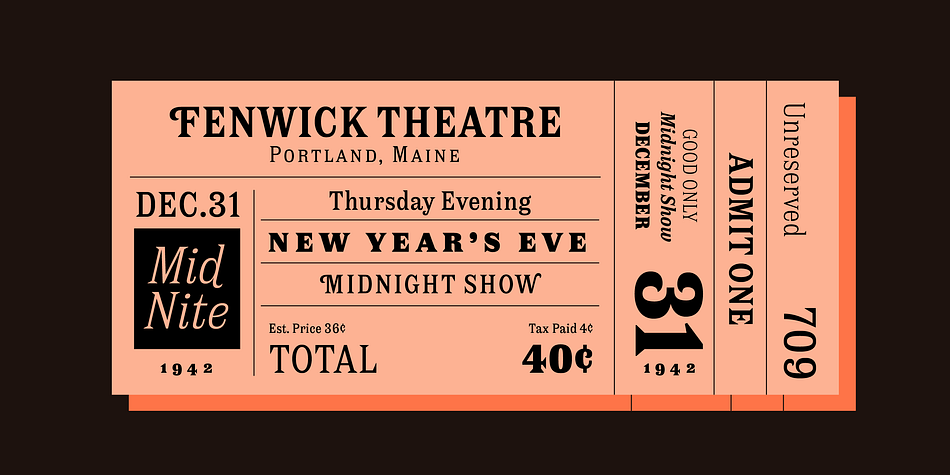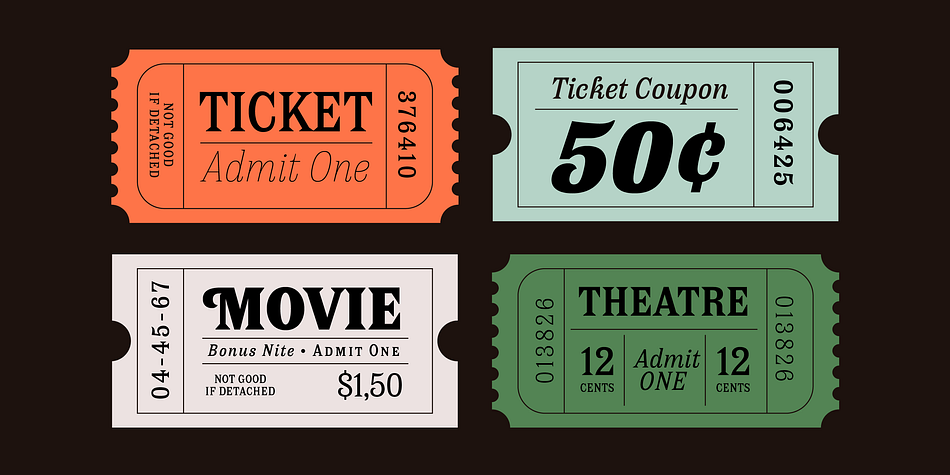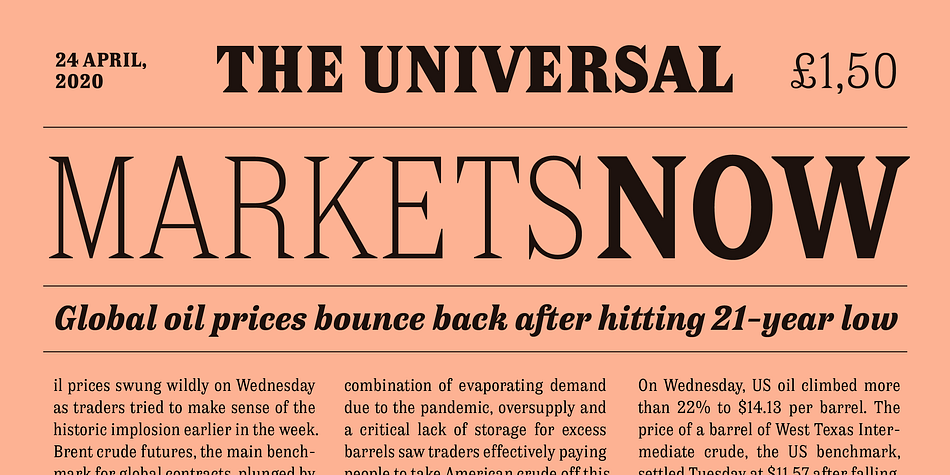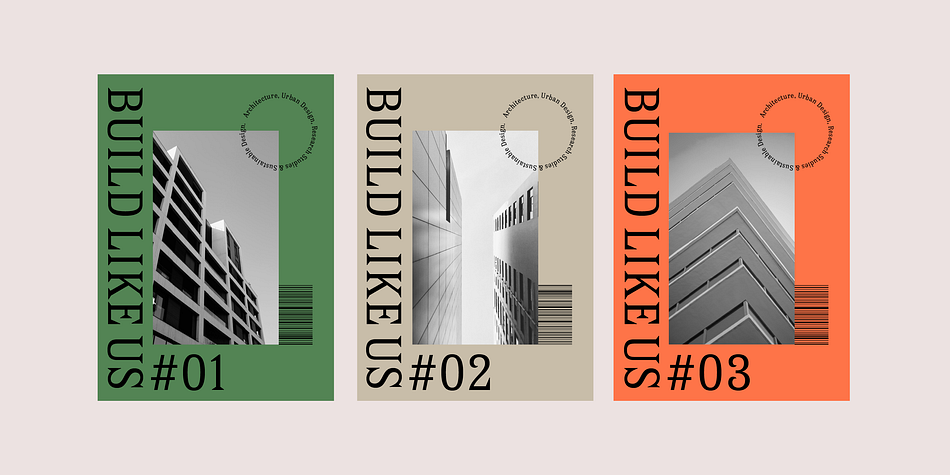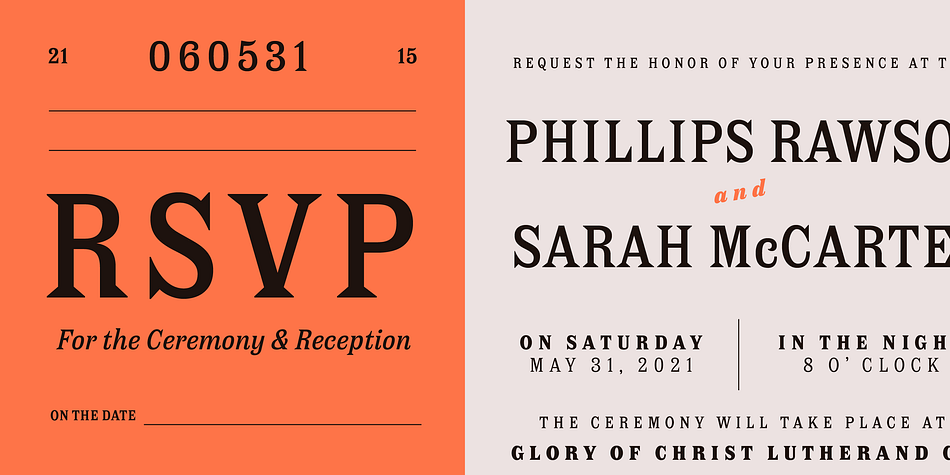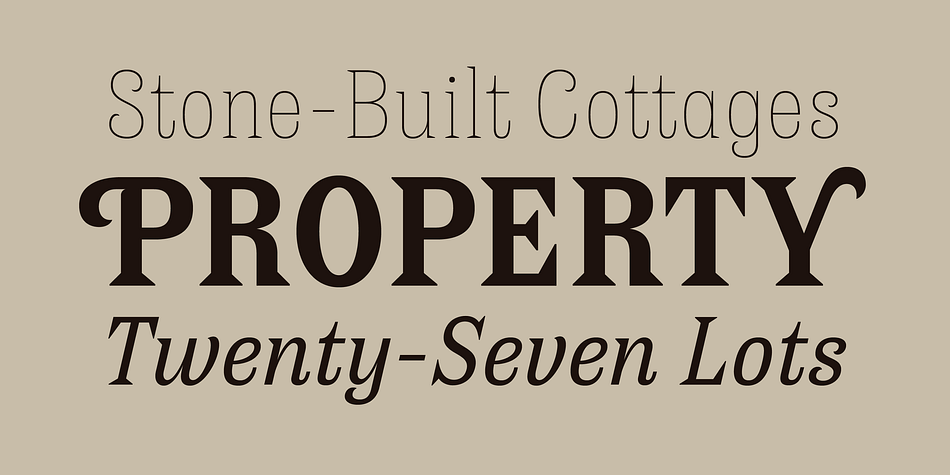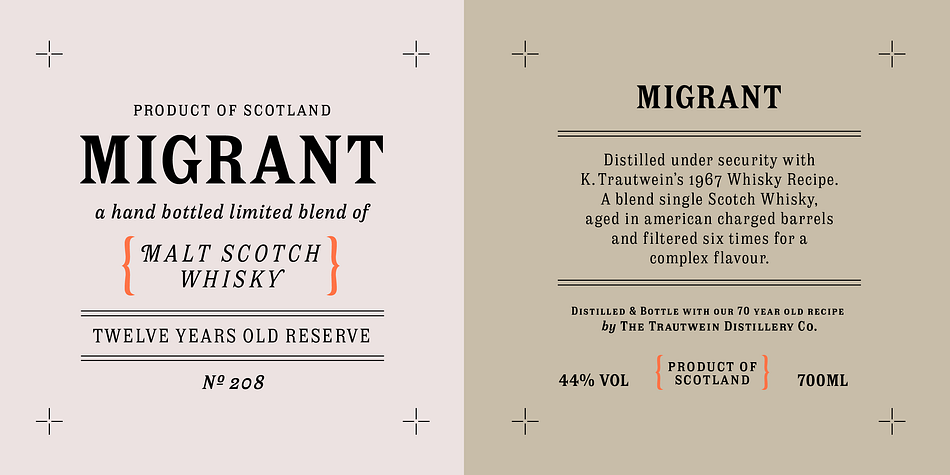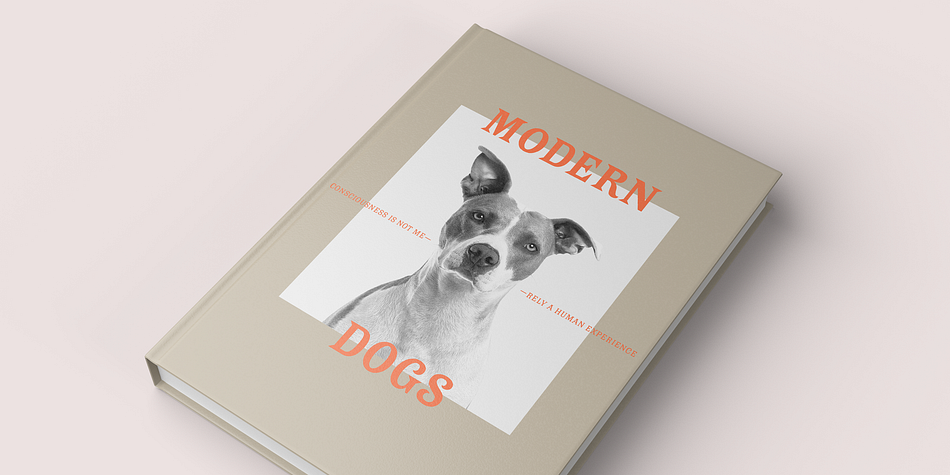
Designed by Alejandro Paul, Antica is a display serif and serif font family. This typeface has eighteen styles and was published by Sudtipos.
Antica has sharp triangular serifs, and in 8 weights with true italics, it forms a family that stylistically finds its origins in Latin styles of the nineteenth century. The font incorporates additional swashes, small caps and stylish alternates that advance the aesthetic from its roots and make it appropriate for modern design.
Commonly named ‘Latin types’ did not vary in weight, but we decided to create Antica with a range that goes from thin to black and we also added extra curlicues to the letterforms. Antica borrows from the versatility and freedom granted to type founders of the nineteenth century – a time when the meteoric growth of mass-produced consumer goods led to an increased demand for publicity that needed fresh, attention grabbing typefaces. And as an homage to these Latin types we designed Antica to function well with an array of projects from stylized labels and formal editorial design requiring small type sizes to large-scale posters and billboards.